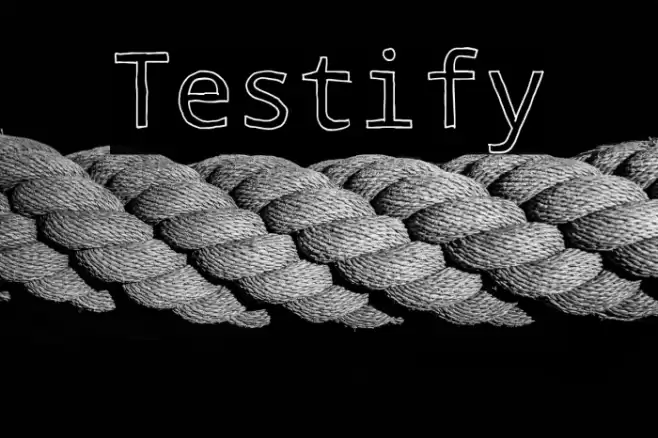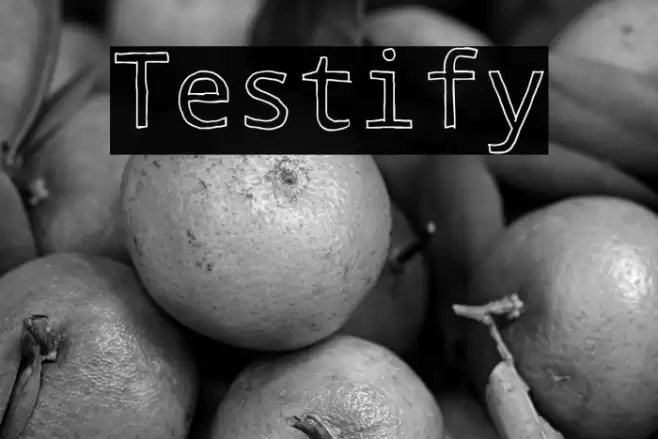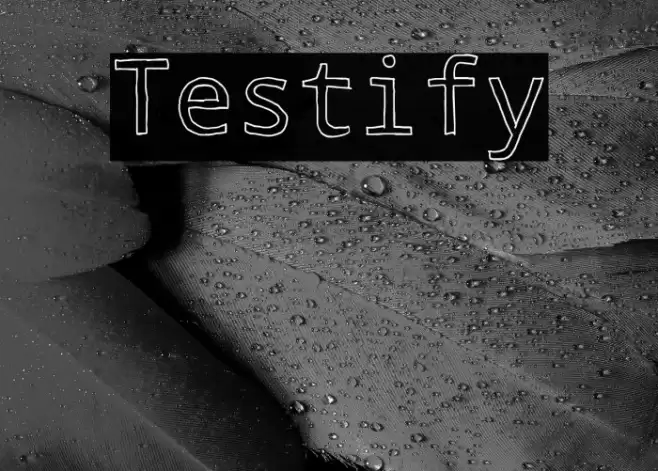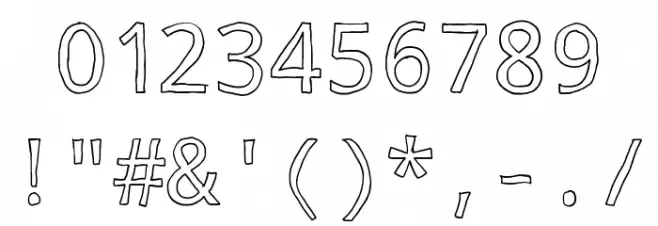
Testify Font
Testify Description
This font features a playful and hand-drawn style, characterized by its uneven lines and slightly irregular shapes. The letters have a casual, informal appearance, reminiscent of doodles or sketches. The uppercase and lowercase letters maintain a consistent style, with rounded edges and a slightly whimsical touch. Numbers and special characters follow the same design ethos, ensuring a cohesive look across all glyphs. The overall aesthetic is light-hearted and approachable, making it suitable for projects that aim to convey creativity and friendliness.
A playful, hand-drawn font with a casual and whimsical style from Regular fonts.
- Proposed Projects: Ideal for children's books, creative posters, casual invitations, and playful branding.
- Use Case: Headlines, Logos, Informal Text